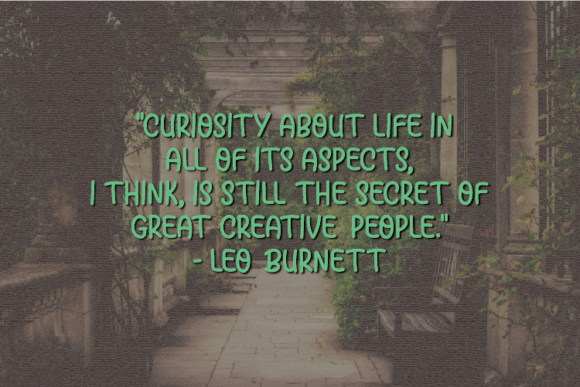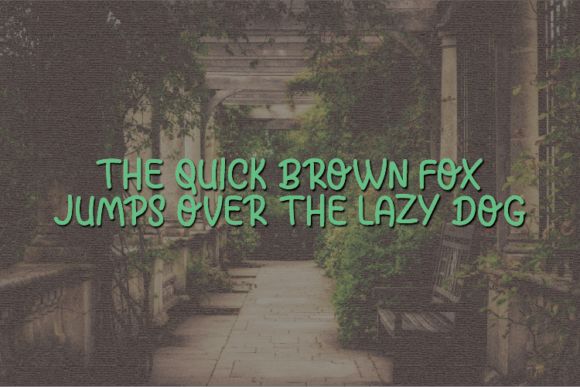
About Botanical Garden Font
**Botanical Garden** is a delightful and informal handwritten font that effortlessly infuses your creative projects with a sense of playfulness and character. Whether you’re incorporating it into crafts, digital design, presentations, or crafting personalized greeting cards, this font possesses the inherent capability to establish itself as your preferred choice, regardless of the specific context or occasion.
With its unique and lively appearance, **Botanical Garden** introduces a touch of whimsy to your designs. This font is remarkably versatile, seamlessly adapting to your design needs and imbuing a distinctive and captivating personality into your work. **Botanical Garden** has the capacity to infuse your creations with charm and vitality, making it the ideal choice for conveying a friendly and inviting atmosphere.
For craft enthusiasts, **Botanical Garden** serves as a valuable tool for adding a personal and artisanal touch to your projects. Whether you’re immersed in DIY endeavors, creating handmade gifts, or pursuing artistic ventures, this font imparts a unique and artistic flair to your creations.
Digital designers will also find **Botanical Garden** to be a valuable addition to their toolkit. It complements a wide array of digital design projects, from website graphics to engaging social media content. Its casual yet refined style facilitates easy integration into your digital compositions, enabling you to achieve a cohesive and visually captivating design.
In the realm of presentations, **Botanical Garden** has the power to elevate your slides beyond the ordinary. It infuses energy and creativity into your presentations, making them more engaging and memorable. Whether you’re delivering a professional pitch or sharing personal stories, **Botanical Garden** can assist you in leaving a lasting impact on your audience.
In summary, **Botanical Garden** transcends being just a font; it evolves into a creative ally that empowers your artistic expression. Its playful handwritten style introduces joy and approachability to your work, rendering it suitable for a wide spectrum of projects. Regardless of whether you’re a seasoned designer or an enthusiastic crafter, **Botanical Garden** is poised to infuse a touch of enchantment into all your creative pursuits. Embrace its unique character, and experience how it can transform your designs into something truly exceptional. Let **Botanical Garden** become your trusted choice, the font that consistently adds personality and vitality to your creations, no matter the occasion!